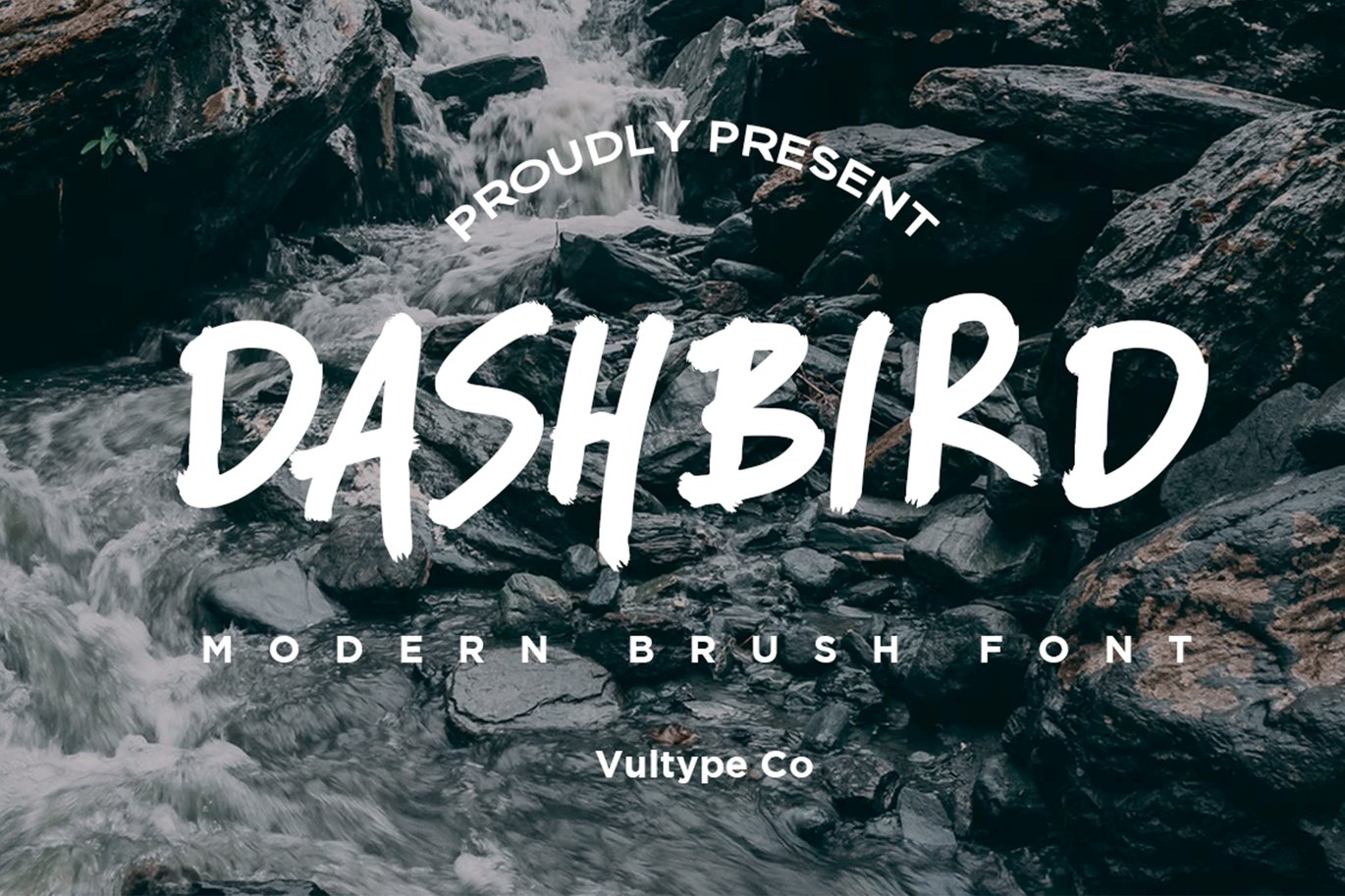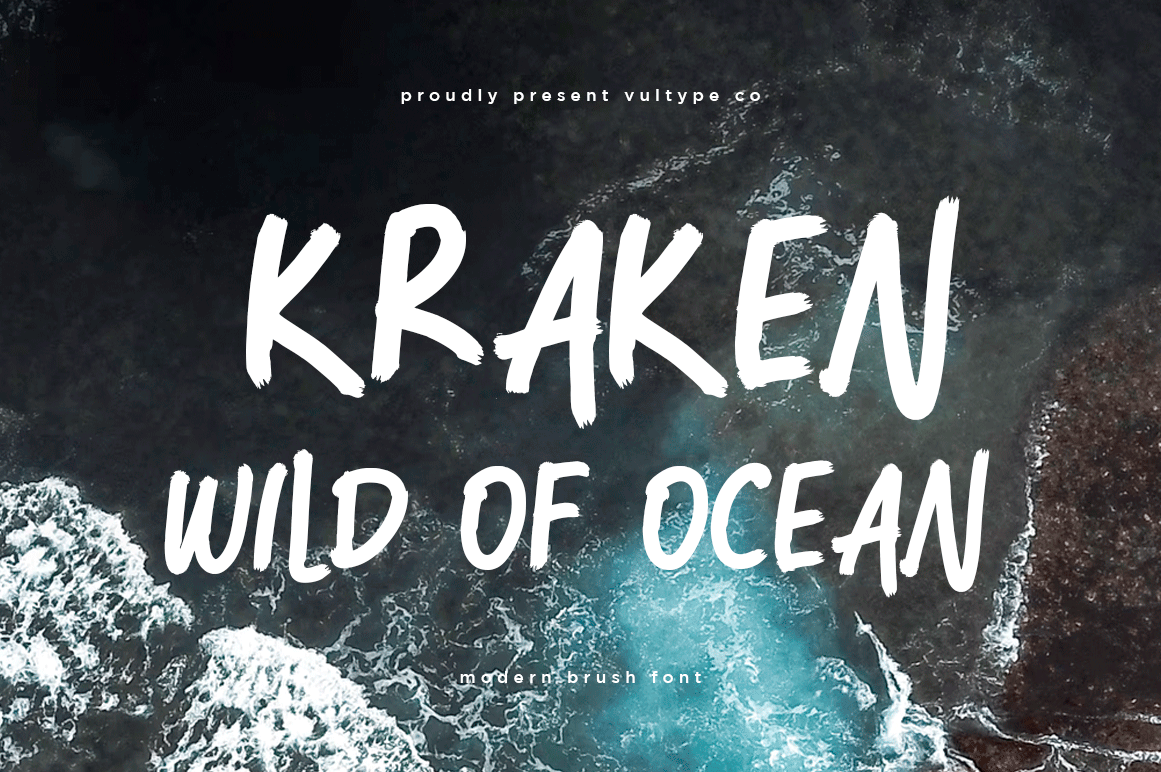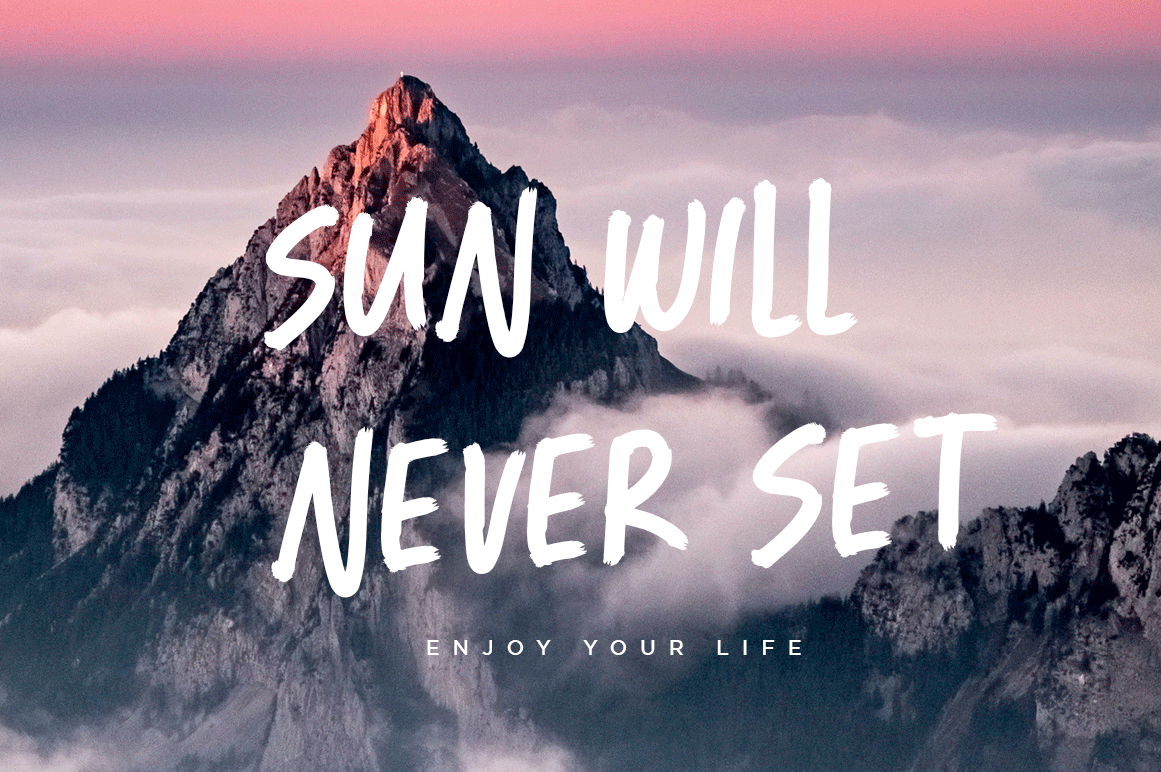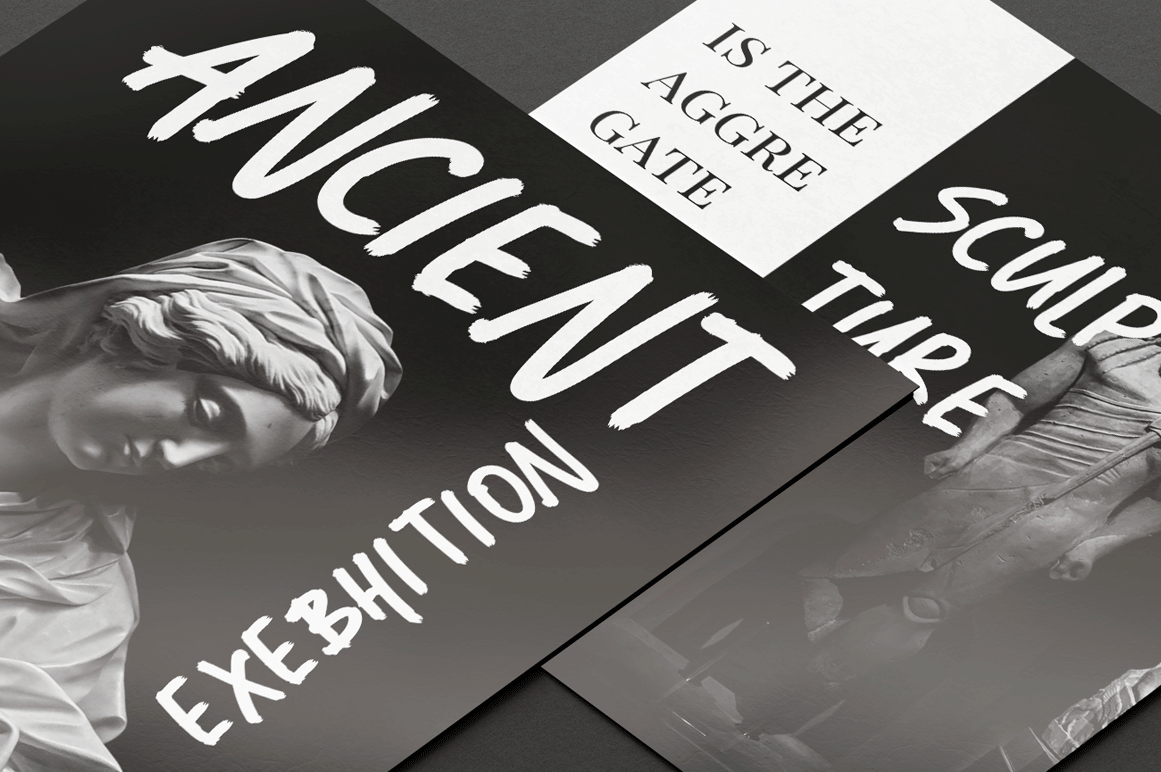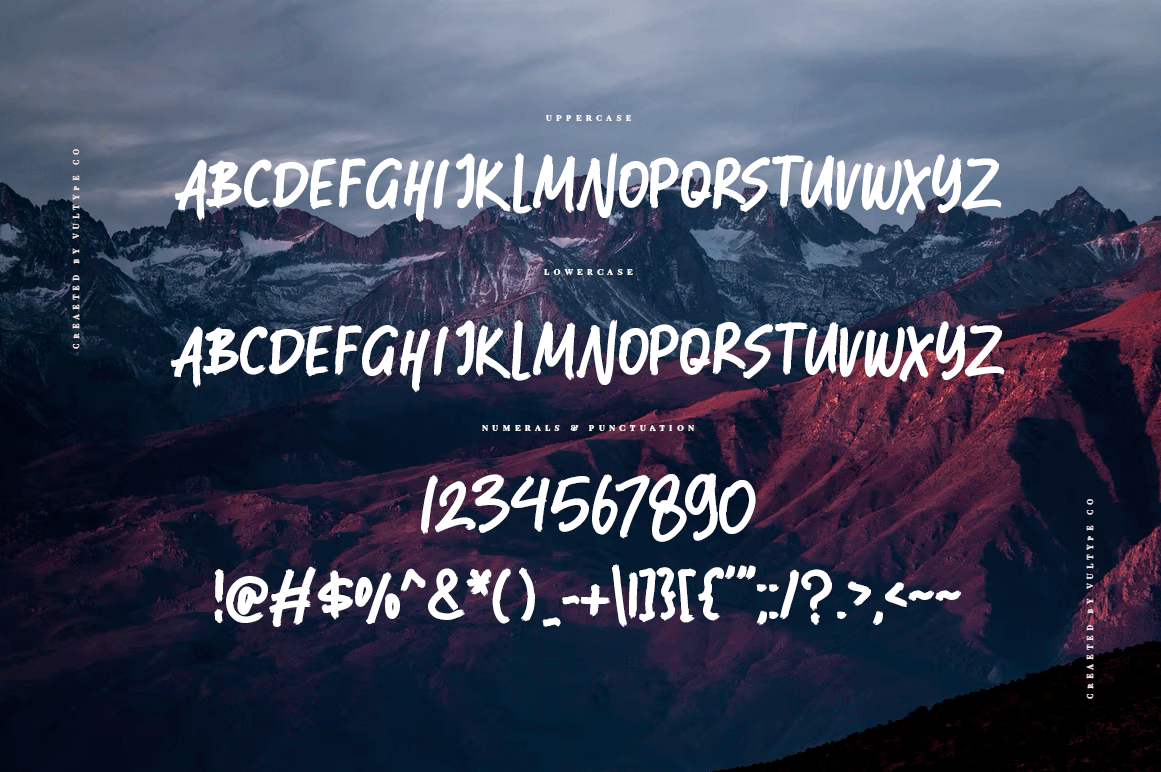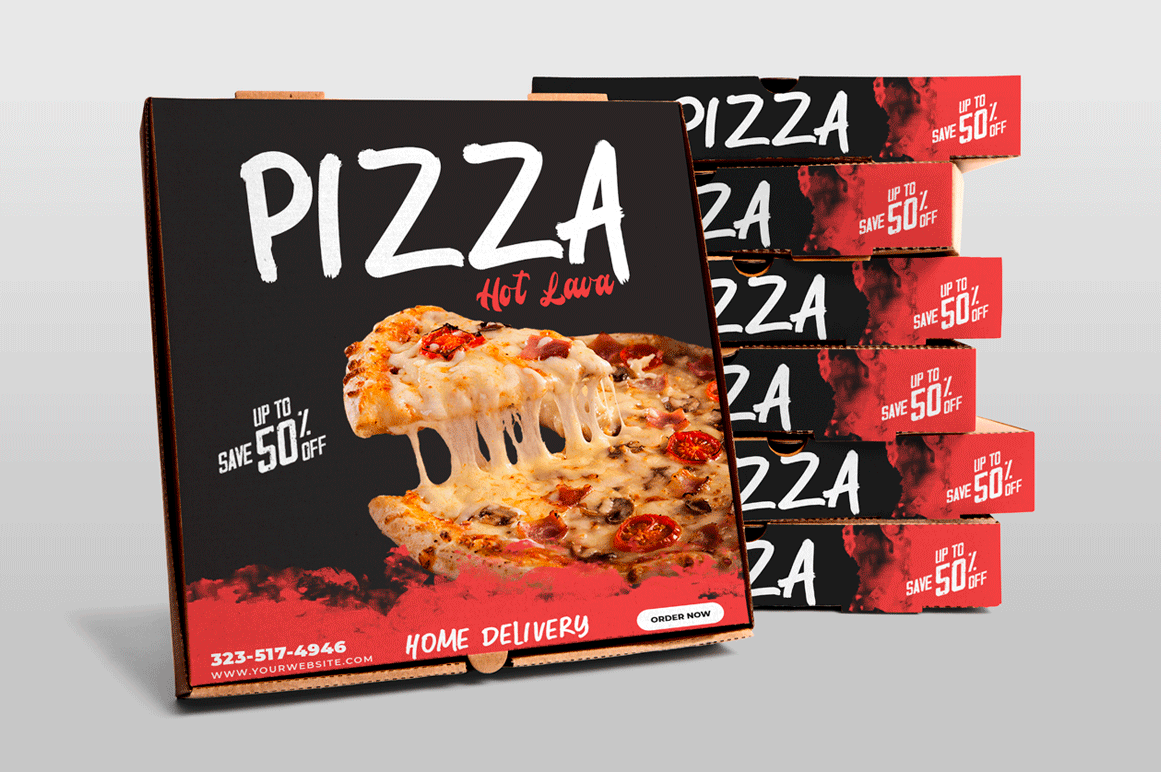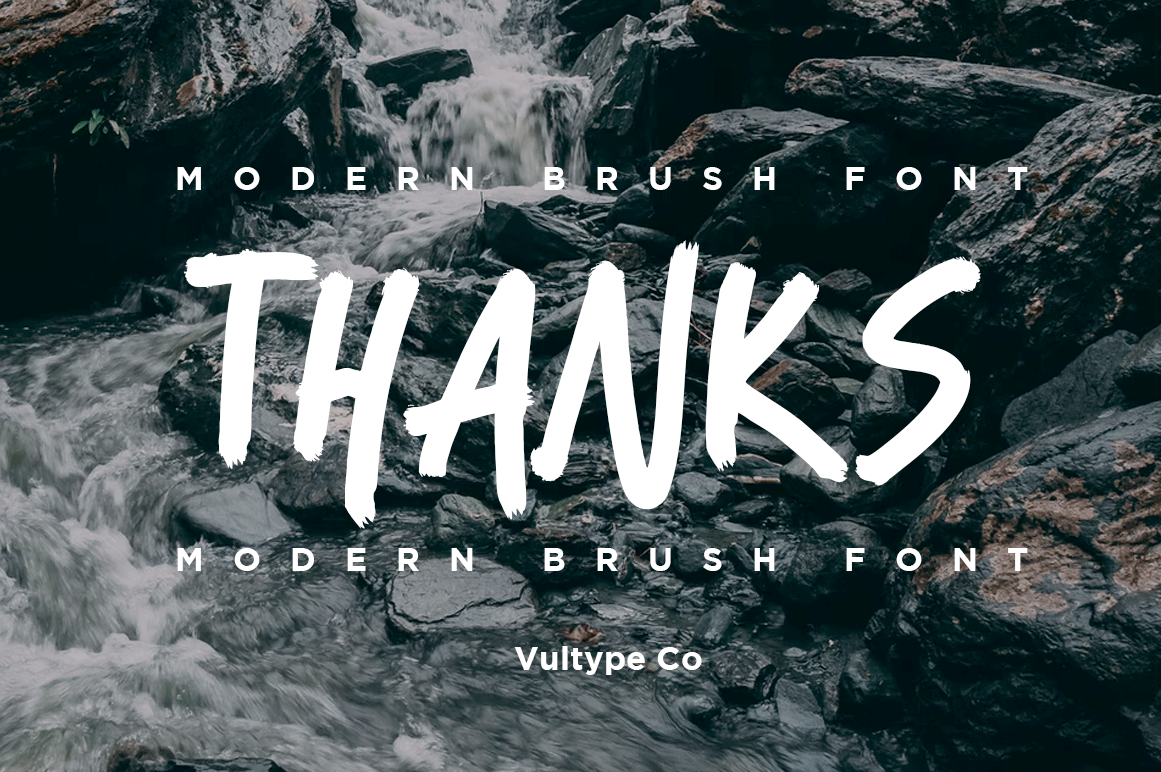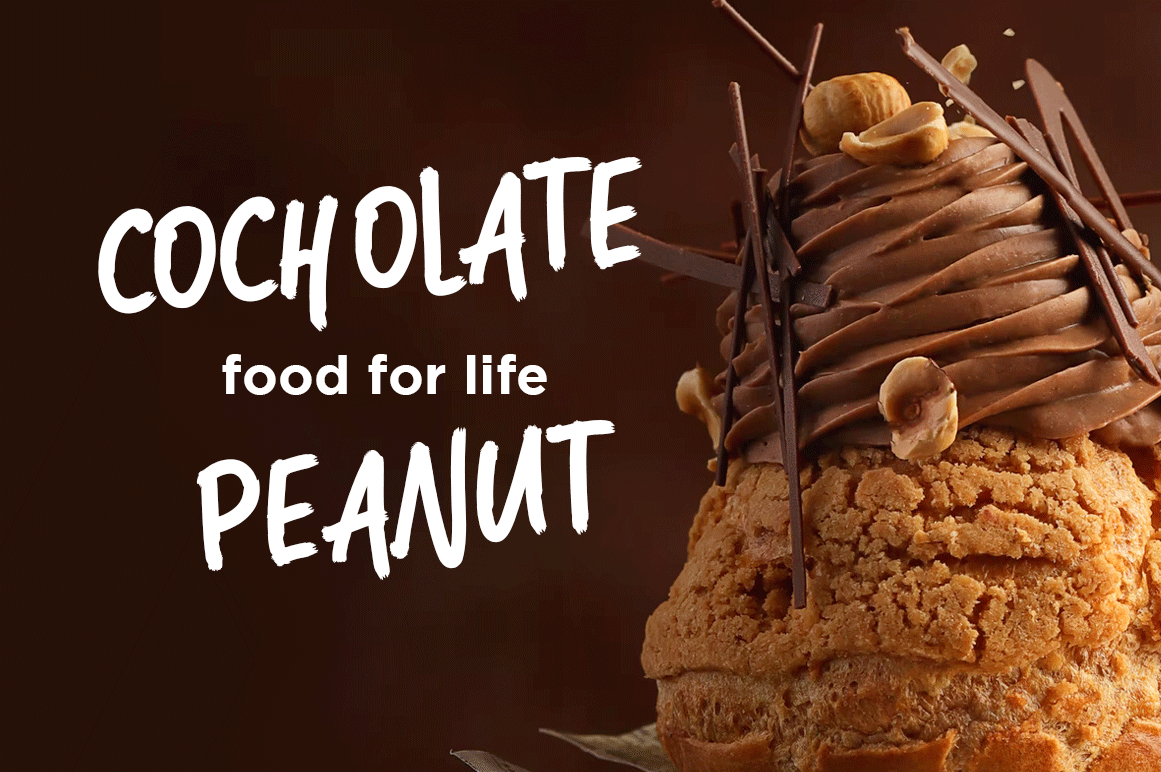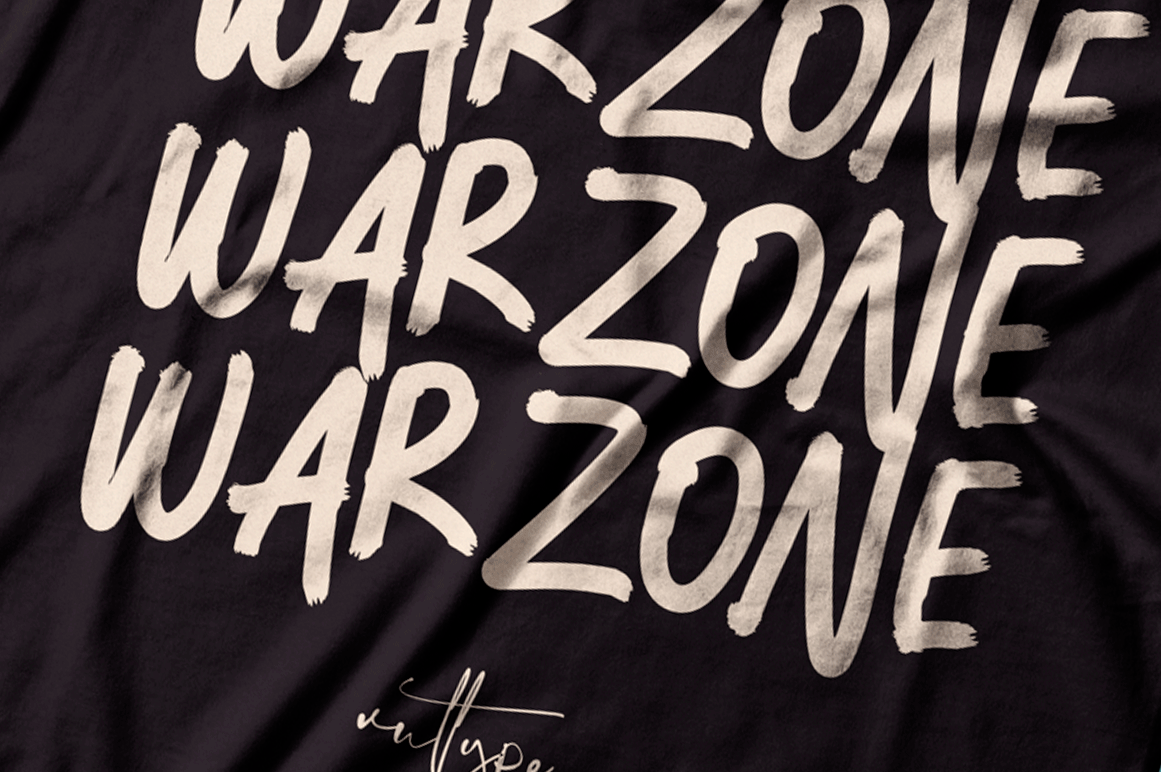
Dashbird – Brush Font
Dashbird is a font made with brush texture. The level of accuracy contained in this font is very sharp, so you will find it exactly as we brush this type with brush pen.